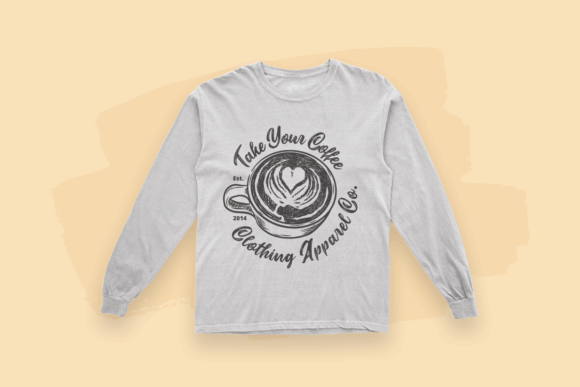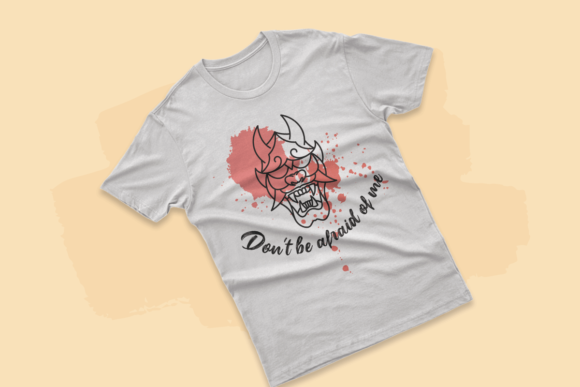
Alternitty Brush Font
db-ku.com - Script & Handwritten -- Alternitty is a classy and flowing handwritten font designed with the help of a pen to create a unique and outstanding result. Fall in love with its incredibly versatile style, and use it to create spectacular designs! It includes elegant swashes, which make it perfect for adding a luxurious feel to your designs.